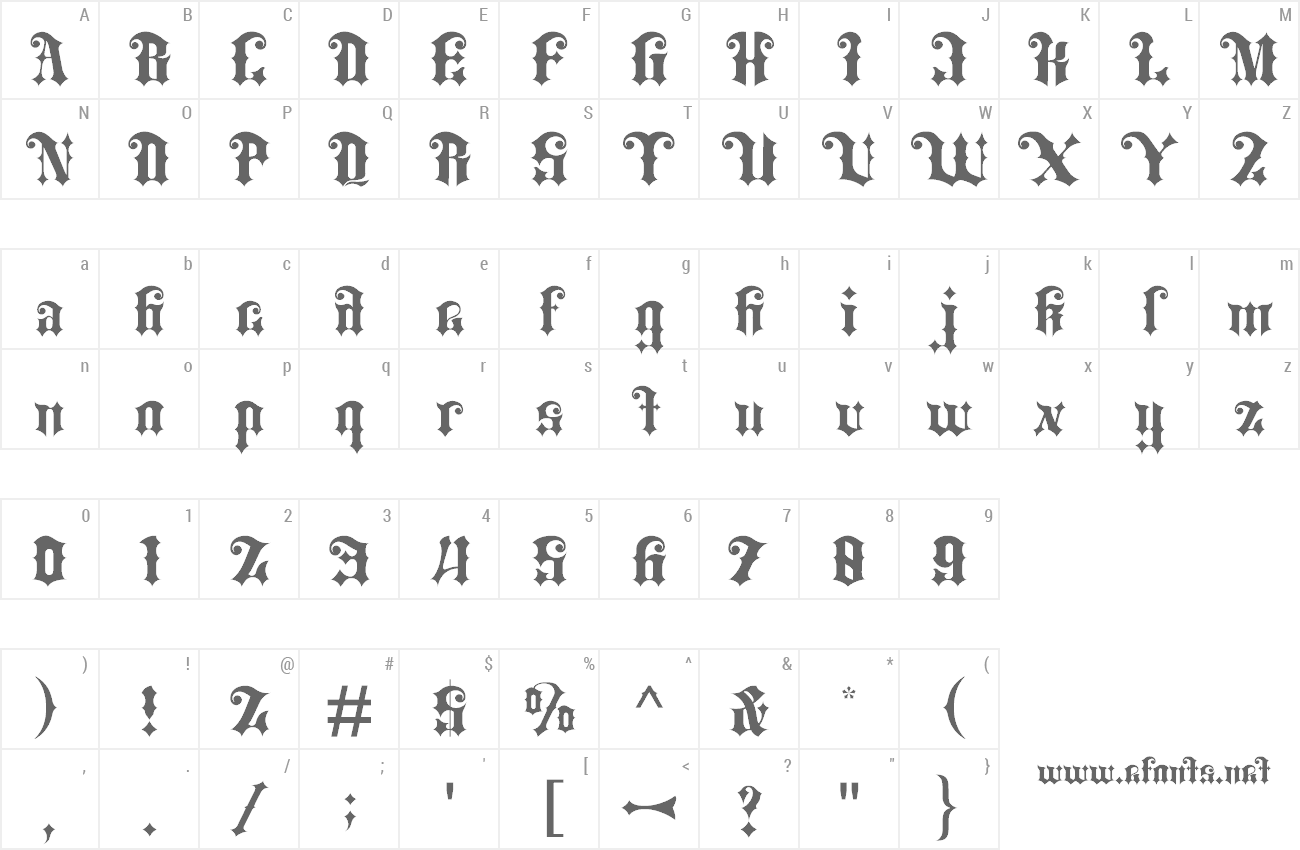
Preview and download Quacko Mahaka Font. Created by Andika in Gothic Modern styles with Free for personal use license.
The newest style letters are perfect for wall displays, wedding invitations, social media post logos, advertisement, product packaging, product design, label, photography, watermark, invitation, writing tool, and any project that requires handwritten taste. Links for commercial use: ================================================== ========= https://scratchones.com/product/quacko-mahaka/ ================================================== ========= ATTENTION: WARNING!!! By installing or using this font, you agree to the Product Use Agreement: - This font has a FULL VERSION and is ONLY for PERSONAL USE. NO COMMERCIAL USE! - If you need CUSTOM PERMIT or COMPANY PERMIT please go to :(www.scratchones.com) - Any donations are greatly appreciated. Paypal account for donations: (andika802131@gmail.com) USE OF COMMERCIAL FONT WITHOUT PURCHASE OF LICENSE OFFICIAL www.scratchones.com will be fined 8X THE MINIMUM LICENSE FEES FROM THE LICENSE PRICE !!!! thanks. |